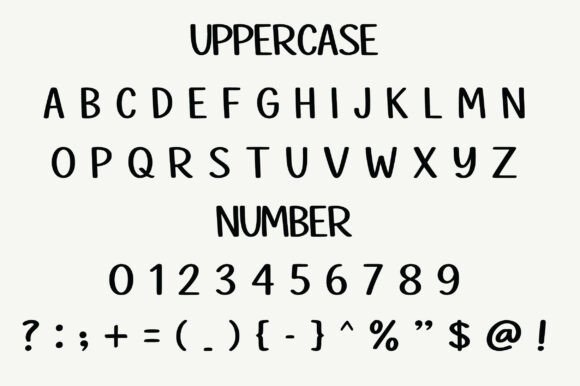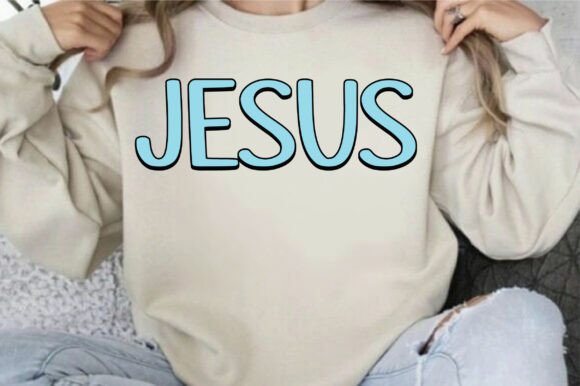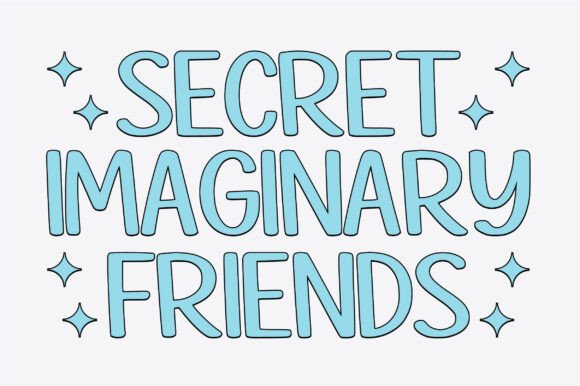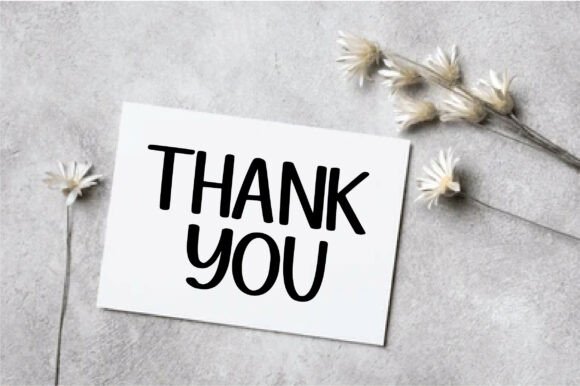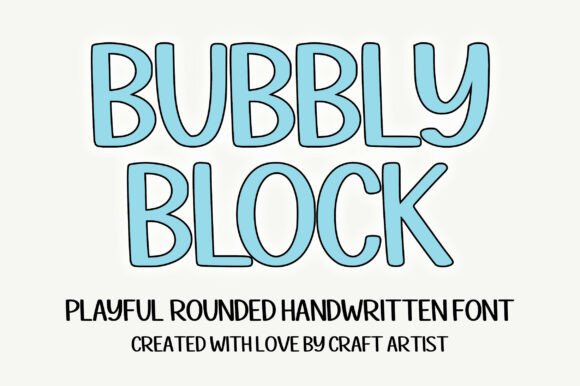
Bubbly Block Font: The Perfect Addition to Your Design Arsenal
Are you tired of using the same old fonts in your designs? Look no further than Bubbly Block, a playful and rounded handwritten font that’s sure to add a touch of personality to your creations. With its bold, bubbly shapes and smooth curves, Bubbly Block is perfect for a wide range of projects, from kids’ designs and branding to stickers, t-shirts, planners, social media, posters, and more.
What Makes Bubbly Block So Special?
Bubbly Block is more than just a font – it’s an experience. Its unique blend of bold, rounded shapes and smooth curves makes it easy to read and fun to use. Whether you’re designing for kids or adults, Bubbly Block is sure to bring a smile to your audience’s face. Plus, its versatility means you can use it for a wide range of projects, from playful and whimsical to bold and eye-catching.
The Perfect Font for Kids’ Designs
Kids’ designs require a special kind of font – one that’s fun, playful, and engaging. Bubbly Block fits the bill perfectly. Its bold, bubbly shapes and bright, cheerful vibe make it perfect for kids’ books, posters, stickers, and more. Plus, its easy-to-read design ensures that kids can easily understand and enjoy your creations.
Branding and Marketing with Bubbly Block
Branding and marketing require a font that’s both memorable and engaging. Bubbly Block is the perfect choice for businesses looking to add a touch of personality to their brand. Use it for logos, packaging, and marketing materials to create a cohesive and recognizable brand identity. Plus, its bold and eye-catching design ensures that your brand will stand out from the crowd.
Crafting and DIY Projects with Bubbly Block
Crafters and DIY enthusiasts love working with fonts that are both fun and easy to use. Bubbly Block is the perfect addition to your crafting arsenal. Use it for planners, journals, and other paper crafts to add a touch of personality and whimsy. Plus, its smooth curves and bold shapes make it perfect for cutting and vinyl projects.
Social Media and Online Content
In today’s digital age, social media and online content are more important than ever. Bubbly Block is the perfect font for creating engaging and eye-catching online content. Use it for social media graphics, blog posts, and website headers to add a touch of personality and whimsy to your online presence.
Why Choose Bubbly Block?
So why choose Bubbly Block over other fonts? Here are just a few reasons:
• Easy to read: Bubbly Block is designed to be easy to read, even at small sizes.
• Fun to use: Bubbly Block is a joy to use, with its smooth curves and bold shapes.
• Full of personality: Bubbly Block has a unique and playful vibe that’s sure to add personality to your designs.
• Versatile: Bubbly Block can be used for a wide range of projects, from kids’ designs to branding and marketing.
Get Creative with Bubbly Block
Ready to get creative with Bubbly Block? Here are a few ideas to get you started:
• Create a kids’ book or poster with bold, colorful graphics.
• Design a brand identity for a business or product using Bubbly Block.
• Make a set of stickers or washi tape using Bubbly Block.
• Create a planner or journal with Bubbly Block headings and decorations.